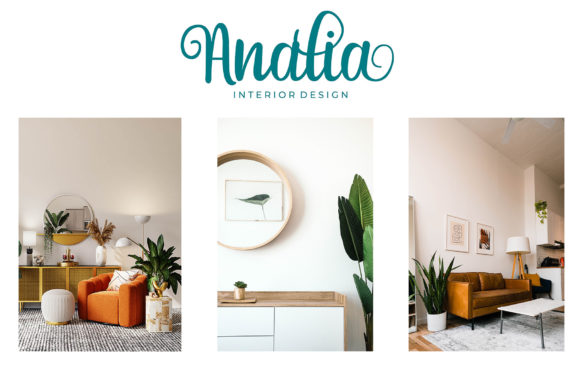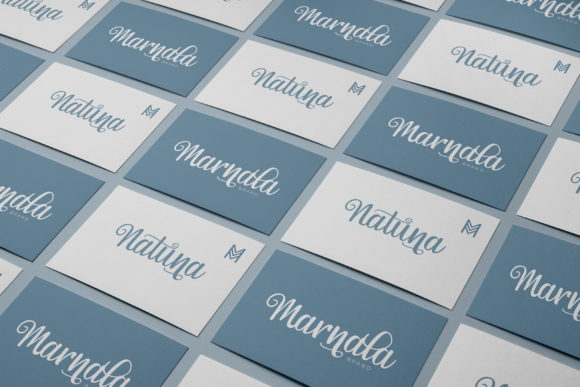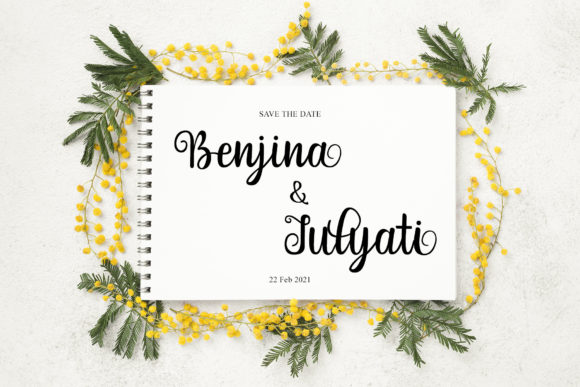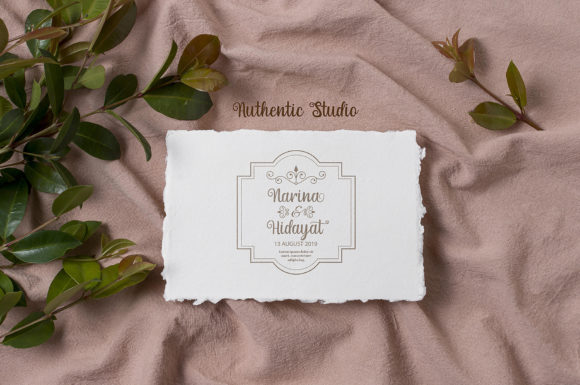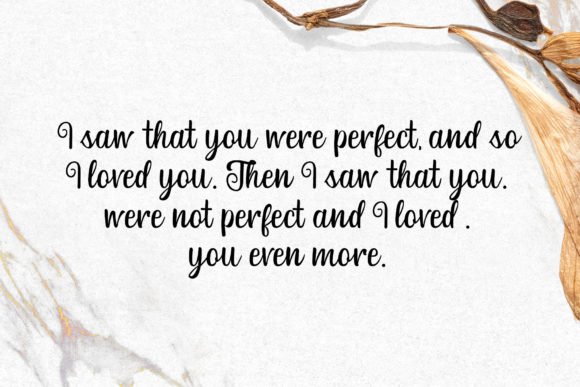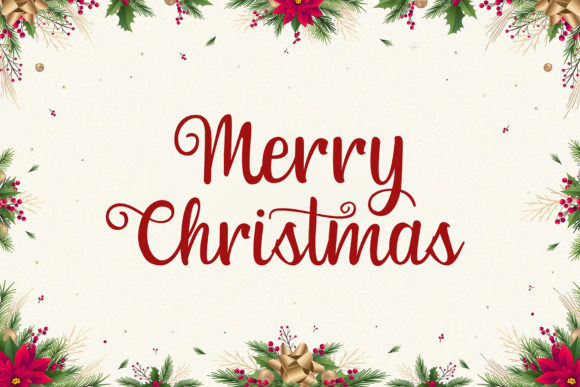
Introduction to Baytina Font
As a designer, have you ever found yourself stuck in a creative rut, searching for that perfect font to elevate your project? The moment of discovery is always exhilarating – when you stumble upon a font that speaks to you, and your design begins to take shape. For many creatives, this moment is what drives them to push the boundaries of their work. And for those who have been searching for that special something, we’re excited to introduce you to the Baytina Font – a romantic and sweet calligraphy font that will add a touch of luxury to any design project.
This beautifully crafted font features characters that dance along the baseline, adding a whimsical touch to any design. With its high-quality design and transparent background, the Baytina Font is a valuable resource for designers looking to add a personal touch to their creative projects. Whether you’re working on a free download or a paid project, this font is sure to impress.
- High-quality design resource suitable for various creative projects
- Unique, elegant design with a transparent background for versatile use
- Designed to provide a sophisticated look for various design applications
Honest Review: Baytina Font
What works well is the high quality of the font, it’s clear that the designer has put a lot of effort into creating a unique and elegant design. The font is also versatile, it can be used for a variety of projects, from logo design to typography-based artwork.
- ✨ Unique and elegant design
- ✨ High quality font
- ✨ Versatile and suitable for various projects
However, there are a few limitations to consider. The font only comes in a transparent background, which may not be suitable for all design projects. Additionally, the font is not as extensive as some other fonts, with only a limited number of styles and weights available.
- ⚠️ Limited number of styles and weights
- ⚠️ Only available in transparent background
Tips for Getting the Most Out of Baytina Font
Baytina Font is a high-quality design resource that can be used in a variety of creative projects. To get the most out of it, use it in conjunction with a transparent background to create a visually appealing design. You can also use it in combination with other design elements, such as graphics and images, to create a unique and eye-catching design.